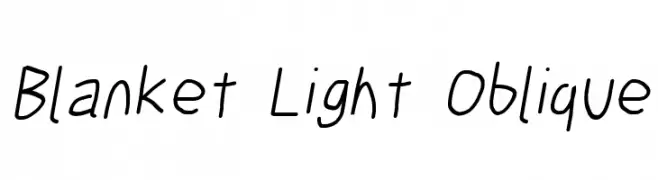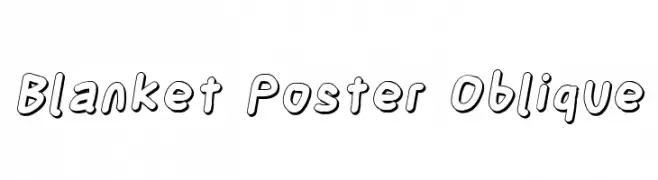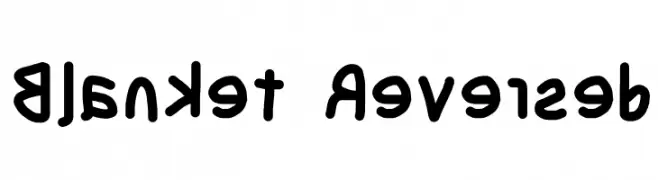
A classic serif font with modern elegance and balanced contrast.
( Fonts by www.smeltery.net )
A playful, bold font with rounded edges and a hand-drawn feel.
( Fonts by billyargel.blogspot.com - Billy Argel )
A decorative Gothic-inspired font with intricate flourishes and bold serifs.
( Fonts by Fernando Carvente - serifdechocolate.wordpress.com )
An intricate, gothic Blackletter font with elaborate, angular designs.
( Fonts by Emeralda Noor Achni Halilintar - emeraldanoorachni.tk )
A casual, handwritten italic font with smooth, rounded strokes.
( Font by Jonathan Harris - www.tattoowoo.com )